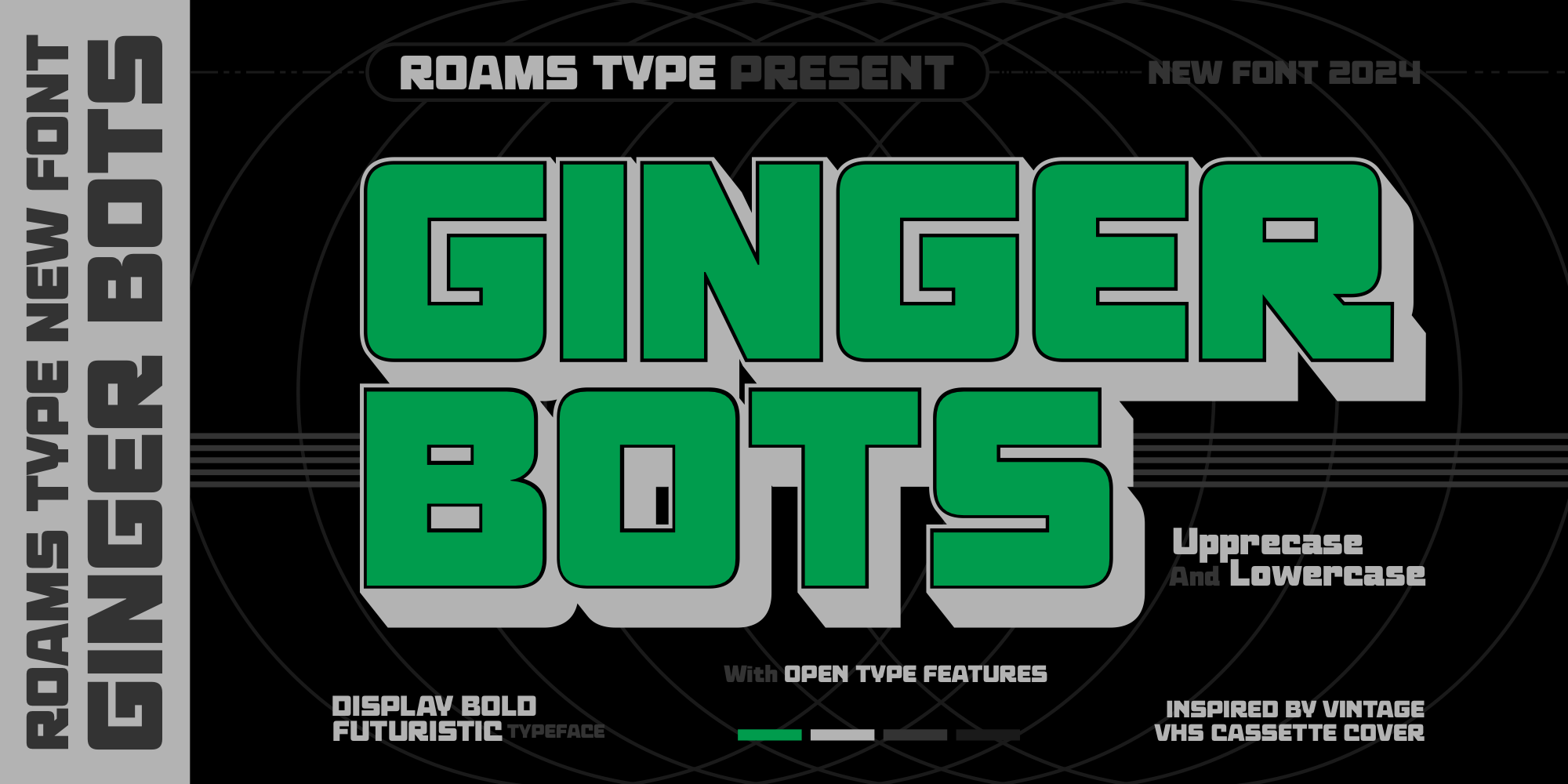
Ginger Bots
Ginger Bots is a retro font family published by Roams Type.
Ginger Bots Inspired by VHS Title Typography in the 80’s era, with a bold and dynamic style, this font will strengthen your logo design or logo typography.